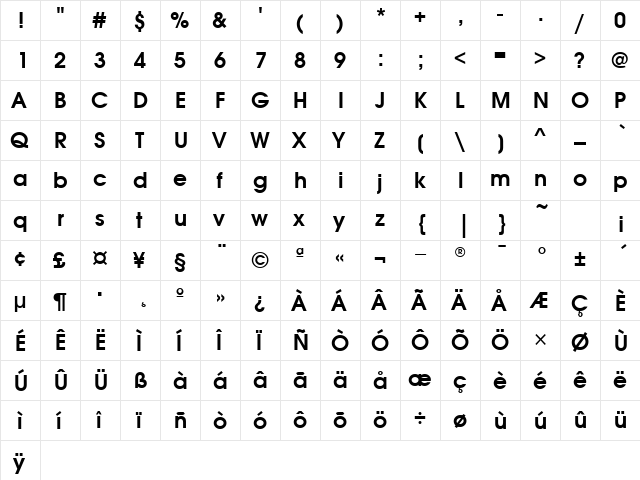
AvantGardeITCTT Demi Font Preview
AvantGardeITCTT Demi
AvantGardeITCTT Demi Font Details
| Style | Demi |
| Foundry | International Typeface Corporation |
| Designer | Herb Lubalin/Tom Carnase |
Design Context for AvantGardeITCTT Typeface
AvantGardeITCTT is a composed and adaptable typeface that performs quietly and consistently across a wide range of design contexts.